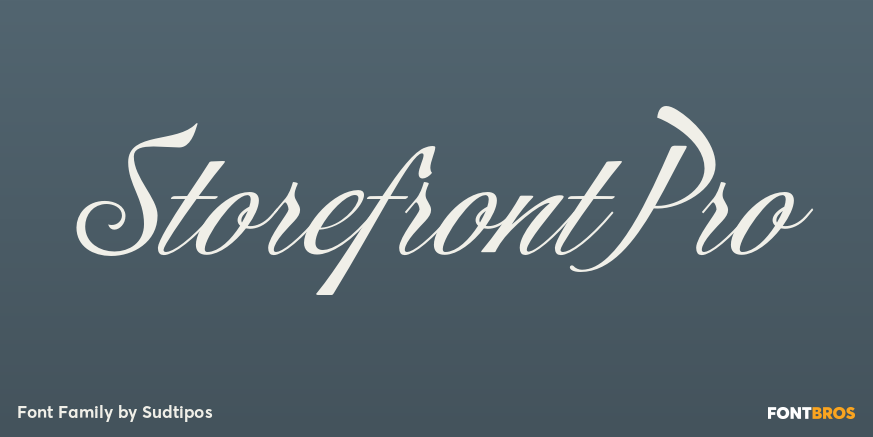
Storefront Pro
About Storefront Pro
Storefront is what the prolific and talented American sign painters of the 1920s and 1930s would have created if they had access to the advanced lettering and type technologies we have today. Rooted in an incomplete Alf Becker alphabet sample, Storefront…